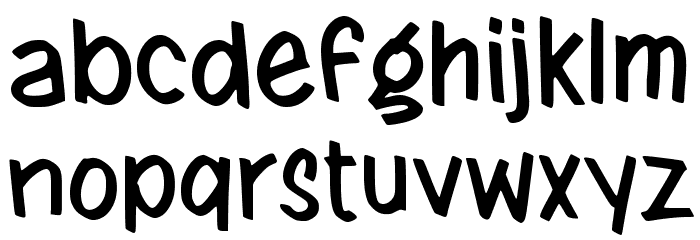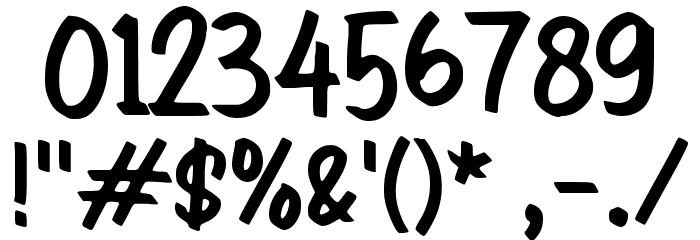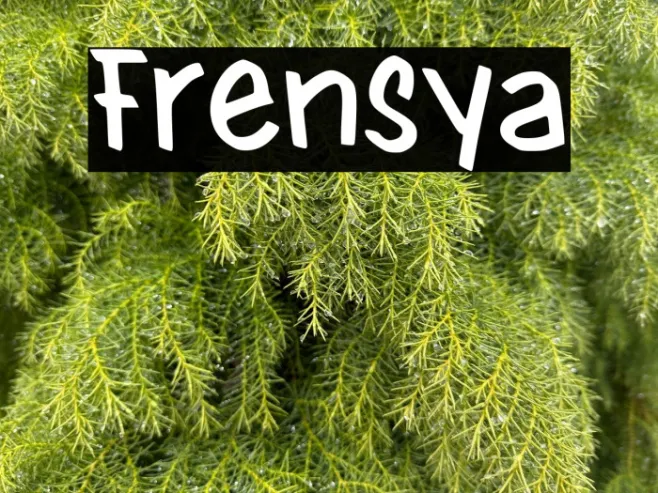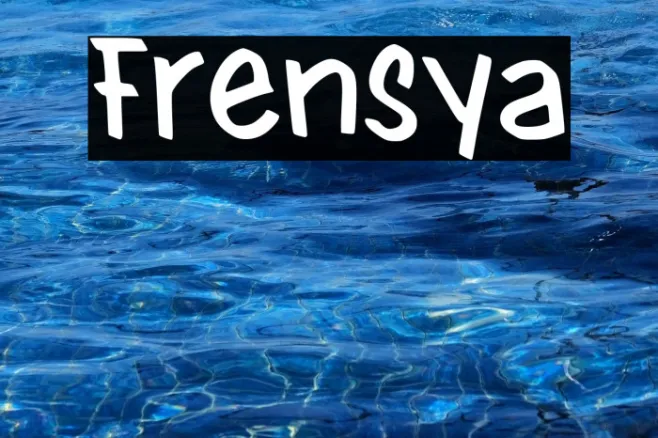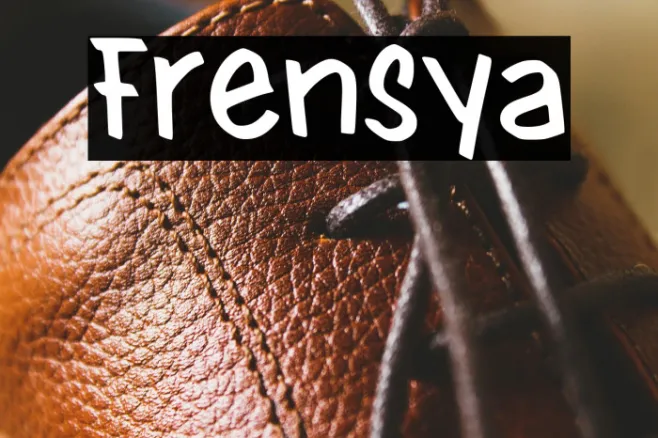
Frensya Font
This font exhibits a playful and informal style, characterized by its handwritten appearance. The letters are slightly irregular, giving it a casual and friendly vibe. The uppercase and lowercase letters are well-proportioned, with a consistent stroke width that maintains readability. The numbers and special characters follow the same playful theme, making them suitable for creative projects. The overall design is approachable and versatile, ideal for conveying a sense of fun and creativity. Its unique style can add a personal touch to various design projects, making it a great choice for those looking to break away from traditional, more formal fonts.
A playful, handwritten-style font with a casual and friendly vibe.
- Font: Frensya
- Proposed Projects: Ideal for children's books, greeting cards, posters, and creative branding projects.
- Category: Handwritten
- Overall Style: Casual, Playful
- Use Case: Headlines, Informal text, Creative projects